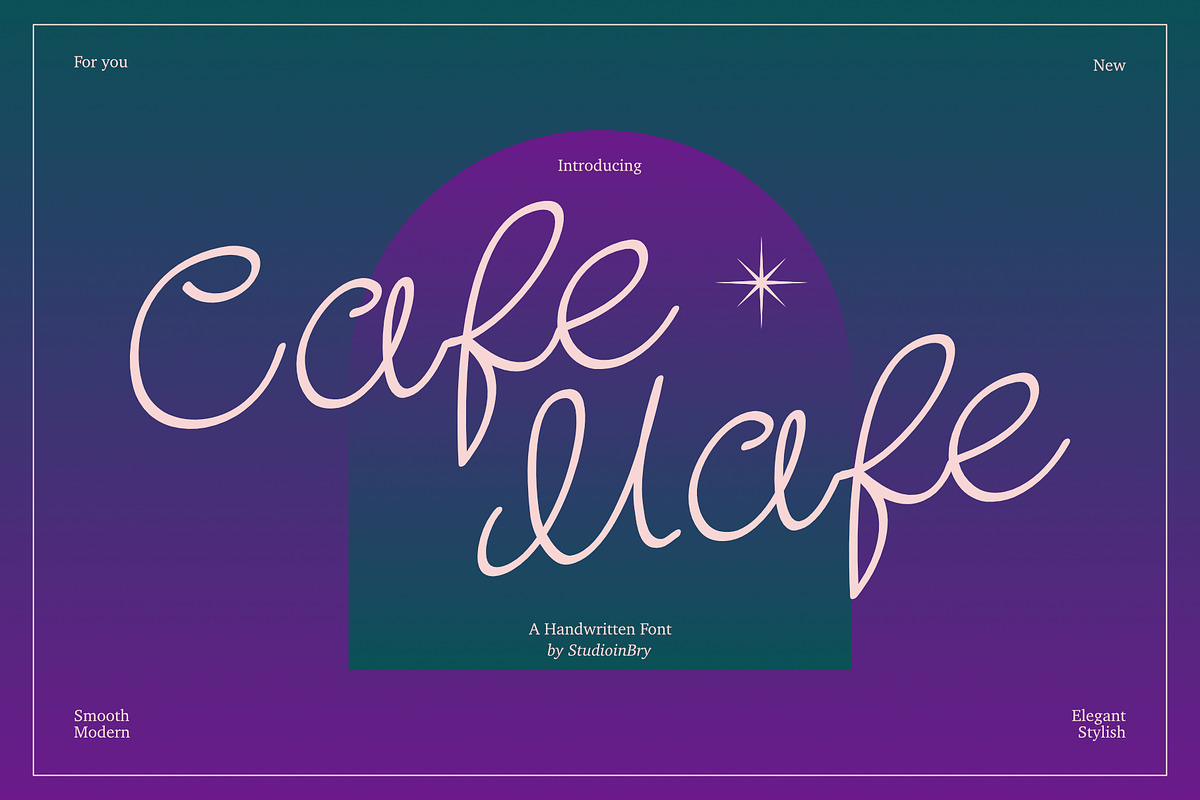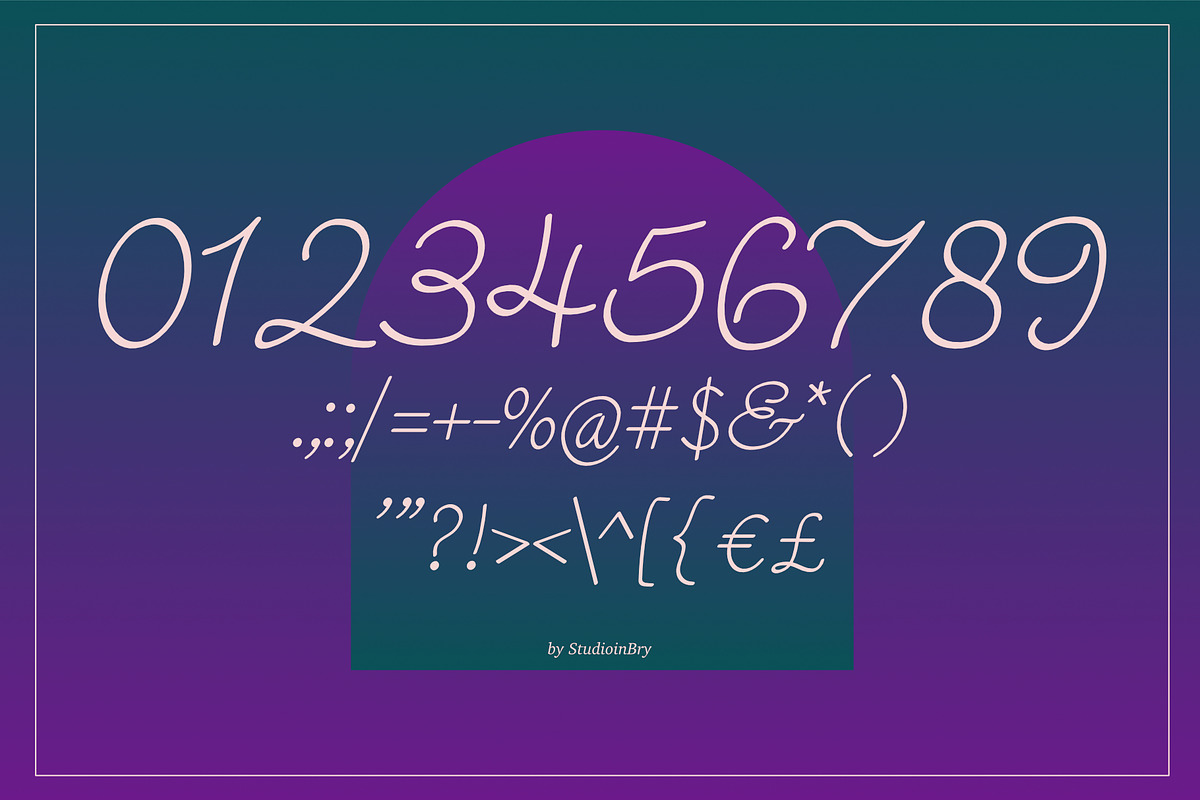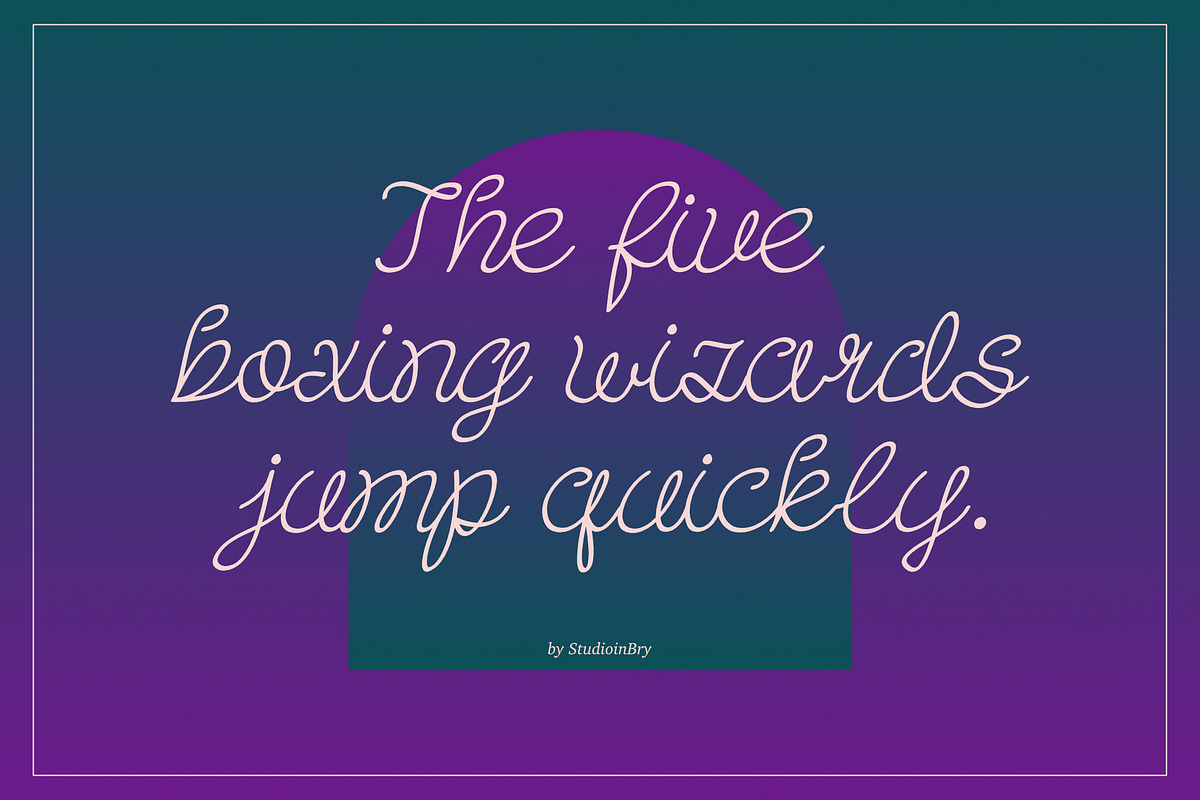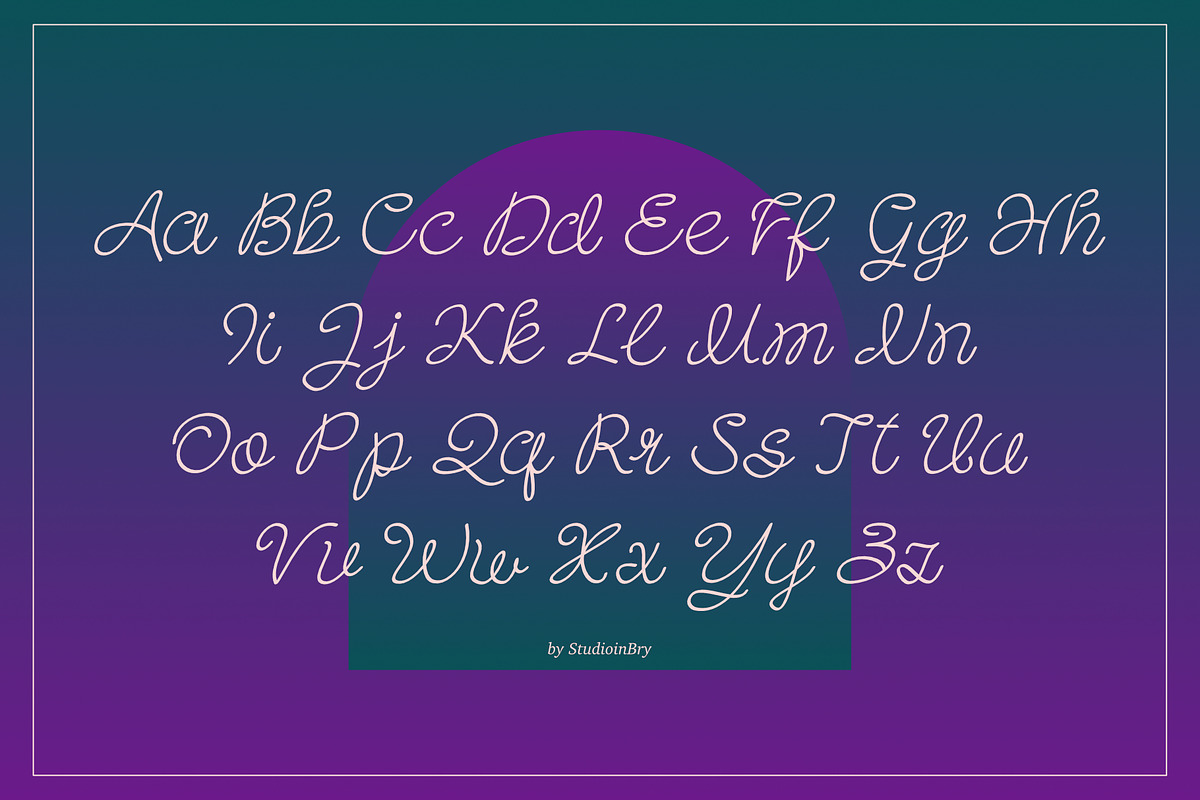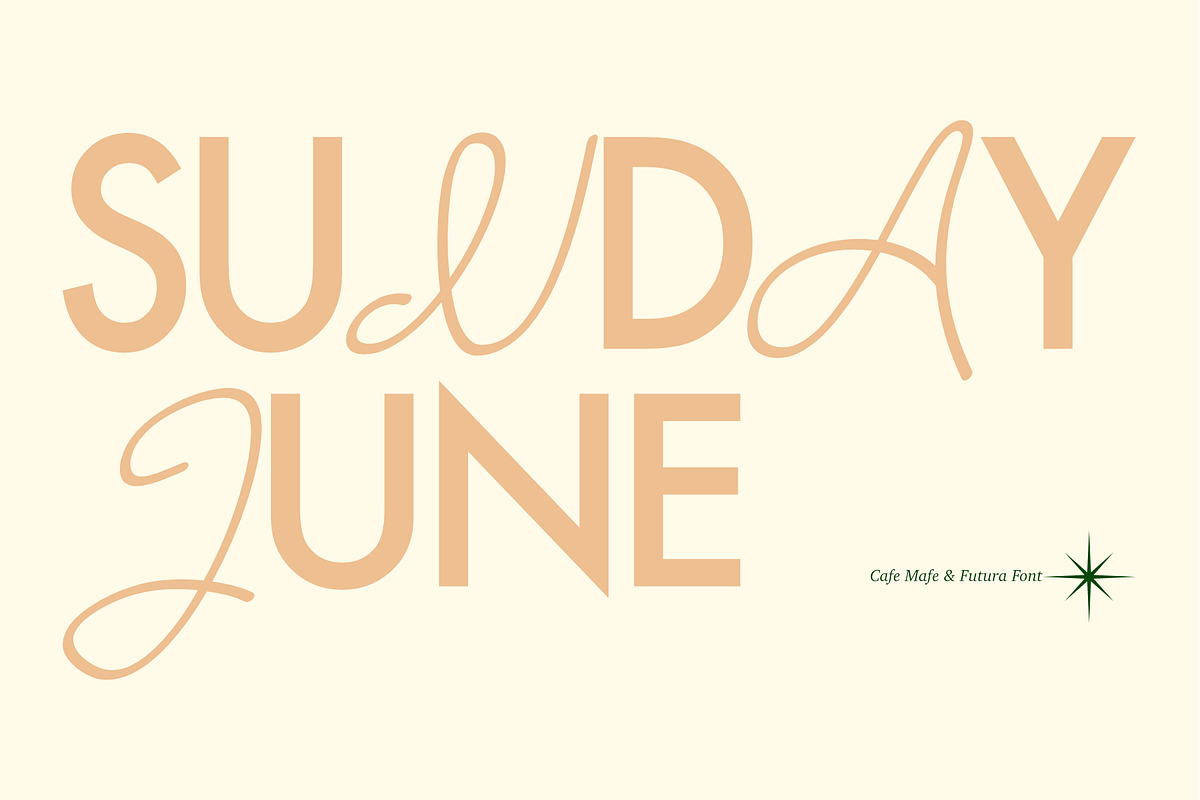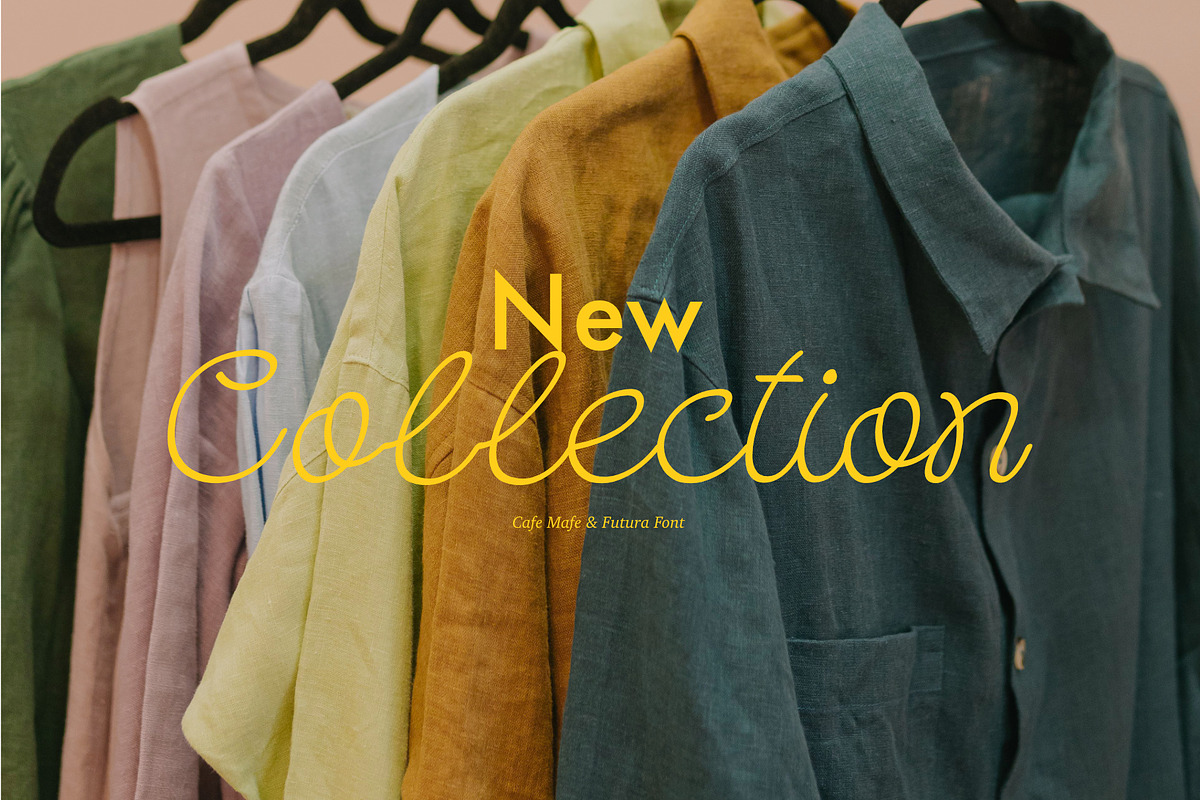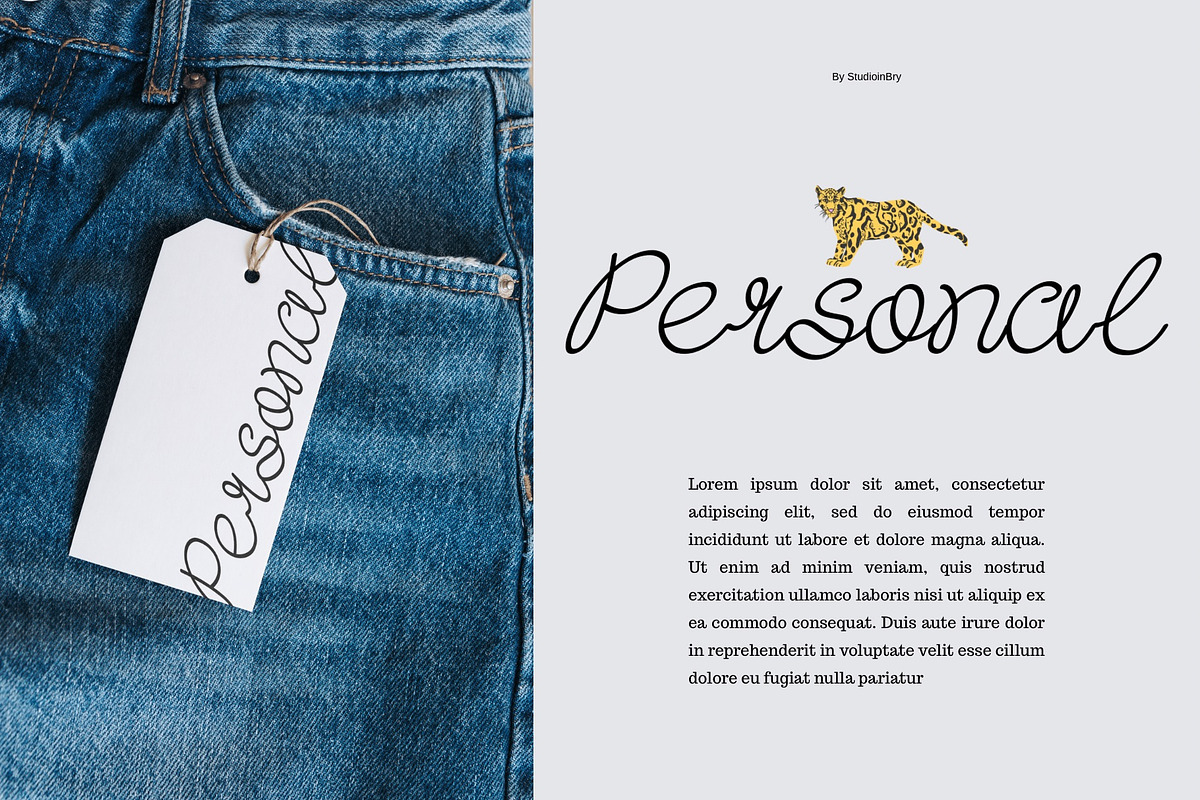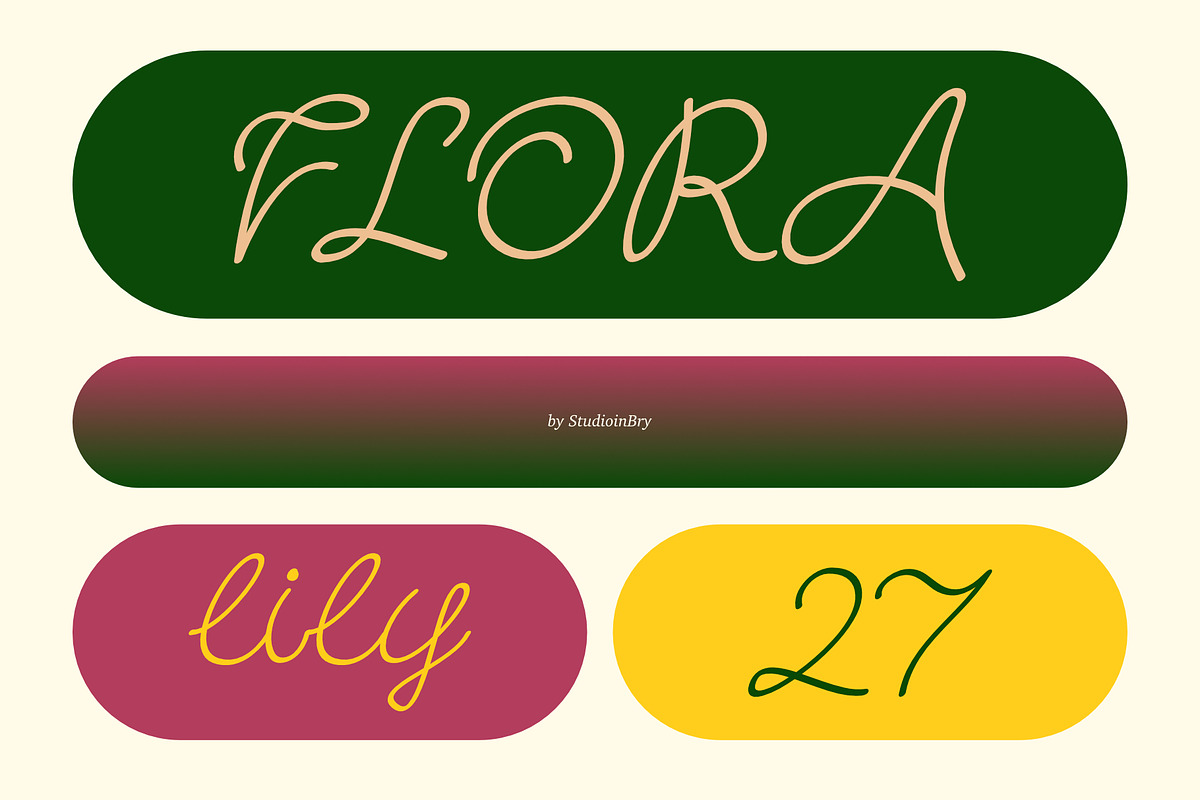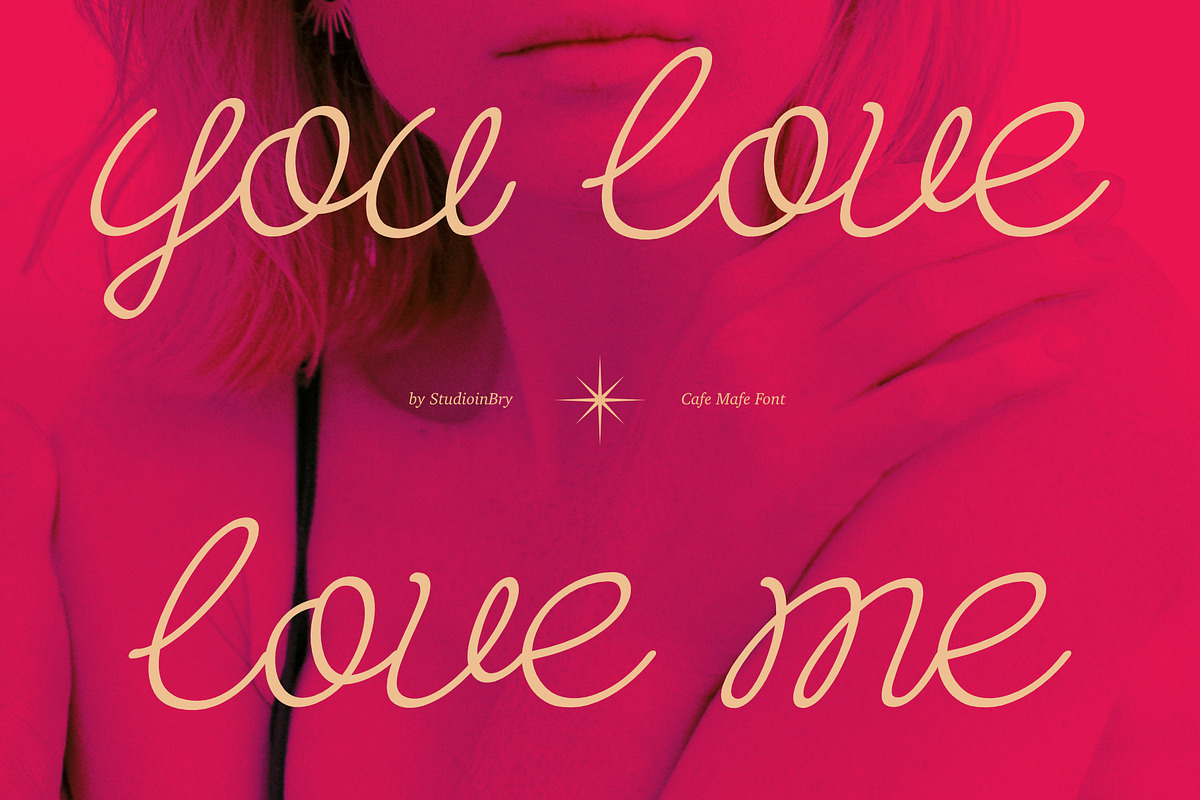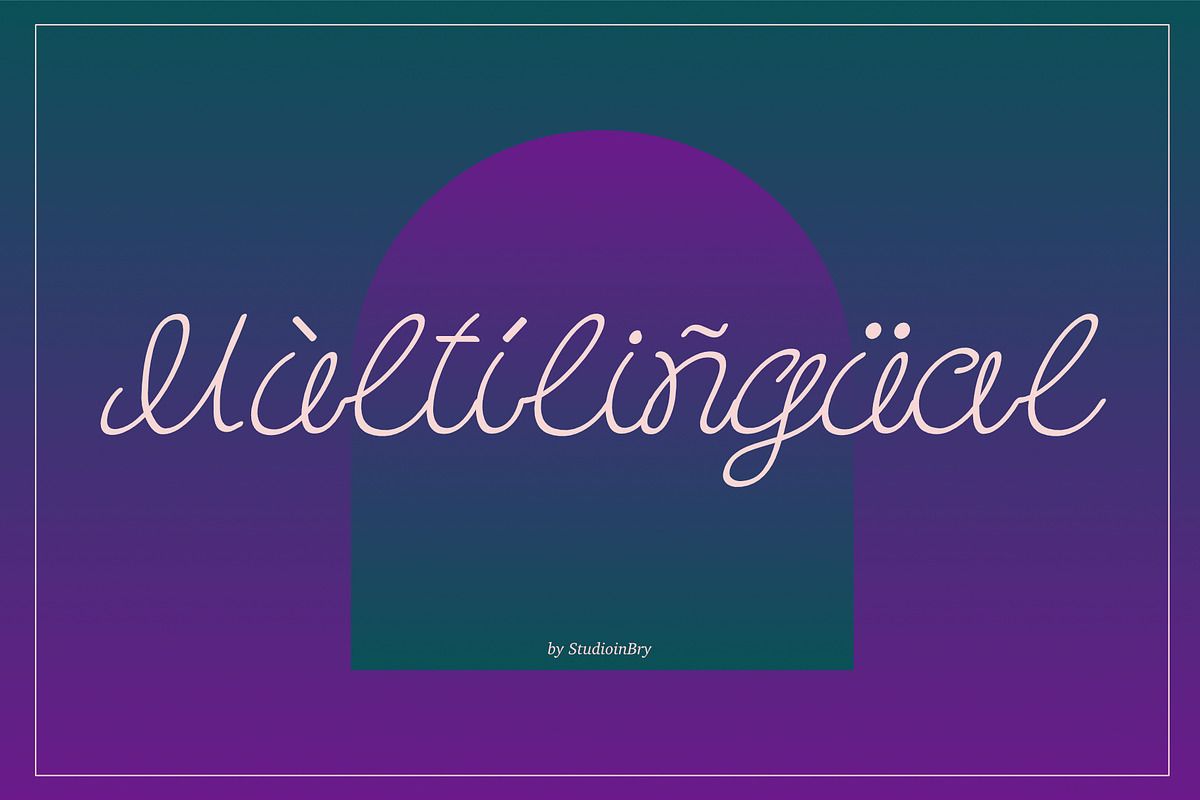
BRY Cafe Mafe - Handwritten Script
Introducing BRY Cafe Mafe – A Charming Modern Handwritten Script
Elevate your creative designs with BRY Cafe Mafe, a beautifully crafted handwritten script font that perfectly blends modern elegance with a warm, personal touch. Defined by its fluid strokes and natural rhythm, BRY Cafe Mafe delivers an effortless sense of style, intimacy, and chic sophistication.
Whether you are building an inviting brand identity or designing eye-catching social media graphics, this font brings an authentic, high-end handmade feel to every project.
Full Alphabet Set (UPPERCASE & Lowercase)
Numbers & Comprehensive Punctuation
Latin Multilingual Support
Perfect For: Café & Restaurant Branding • Artisanal Packaging • Social Media Quotes • Wedding Invitations • Lifestyle Blogs • Photography Watermarks • Cozy Merchandising